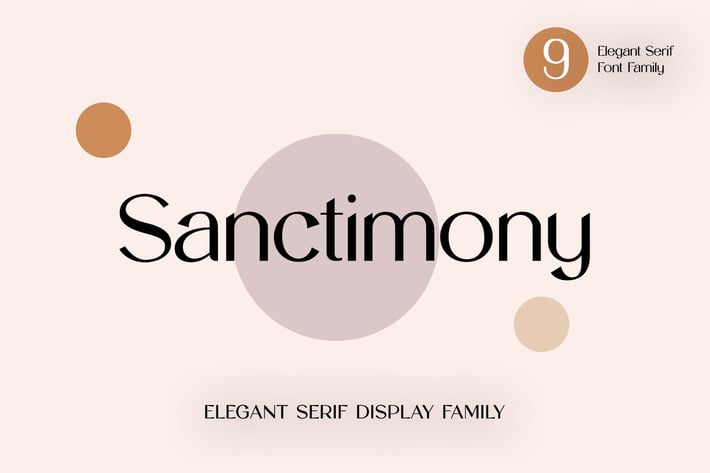
Sanctimony Elegant Display Serif Font Family
Introducing our new product the name is Sanctimony Elegant Display Serif Font Family. Sanctimony Elegant Display Serif Font Family that feels beautiful classy, elegant, and modern. This font is ideally suited for a wide variety of projects, such as signature, stationery, logo, wedding, typography quotes, magazine or book covers, website headers, clothing, branding, packaging design, and more. Also, fashion-related branding or editorial design displays both masculine and feminine qualities.